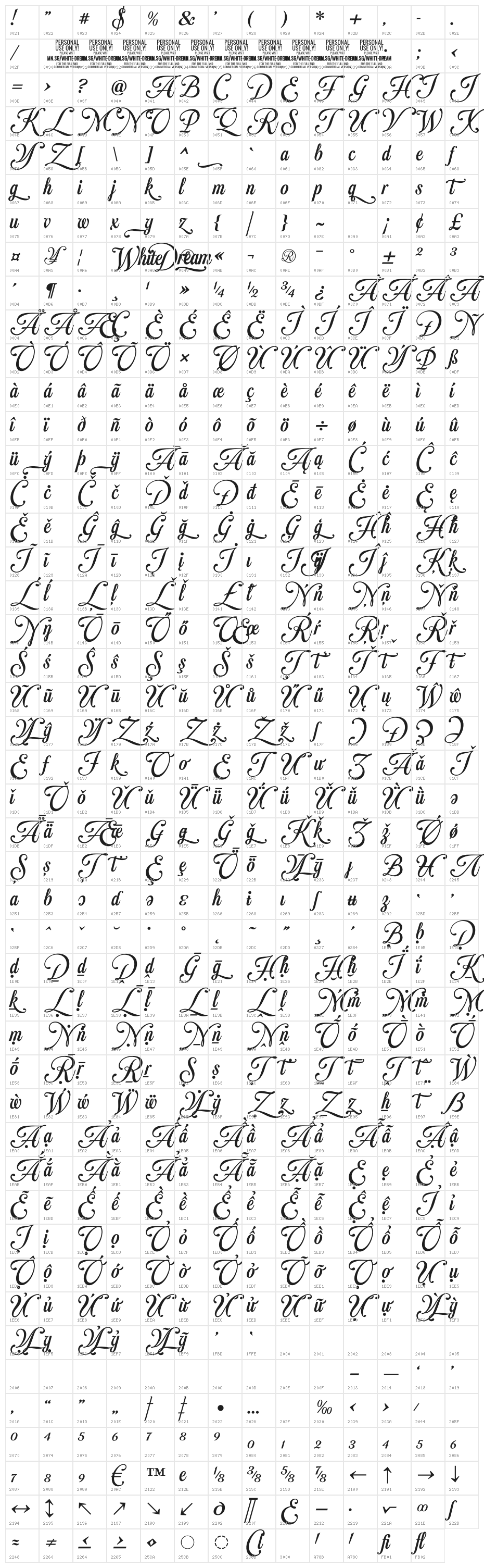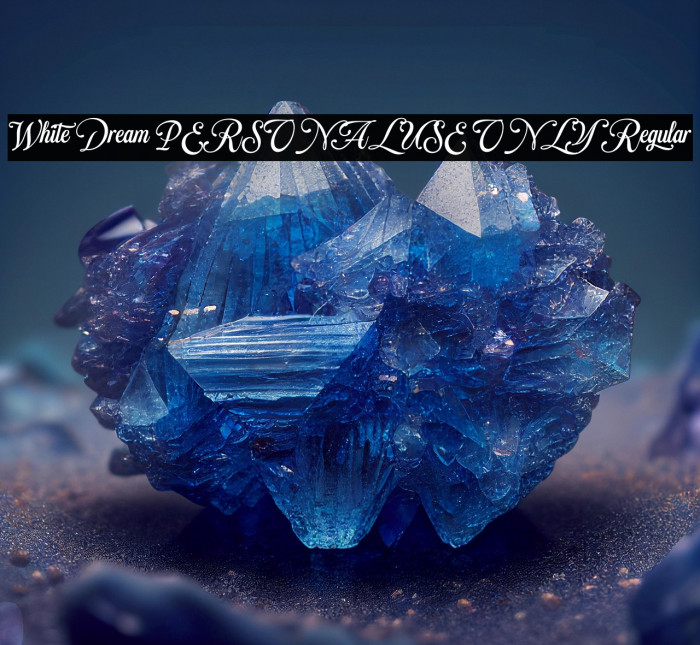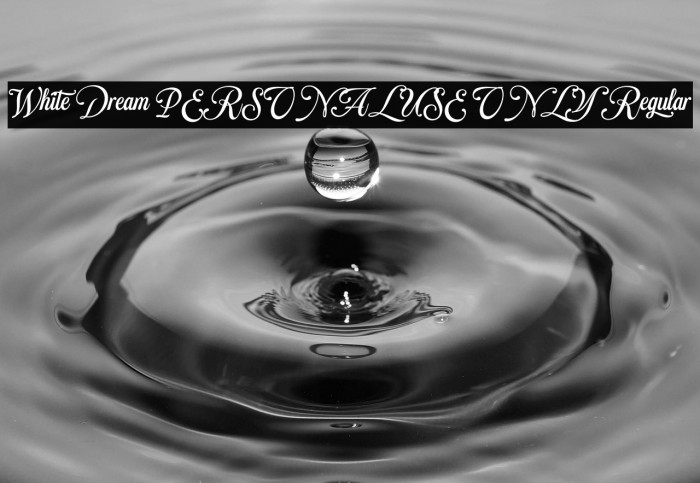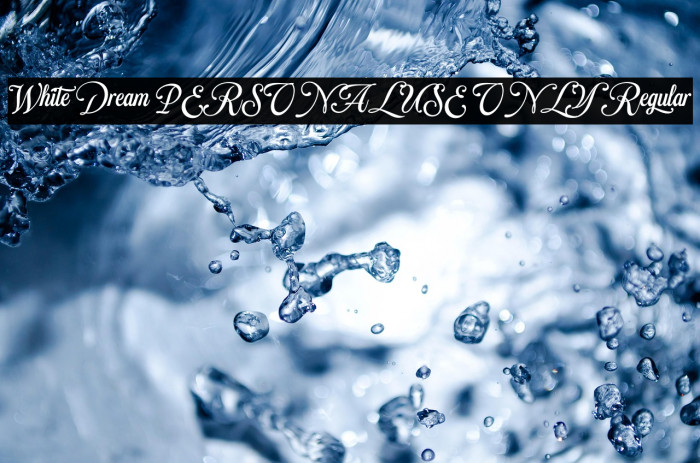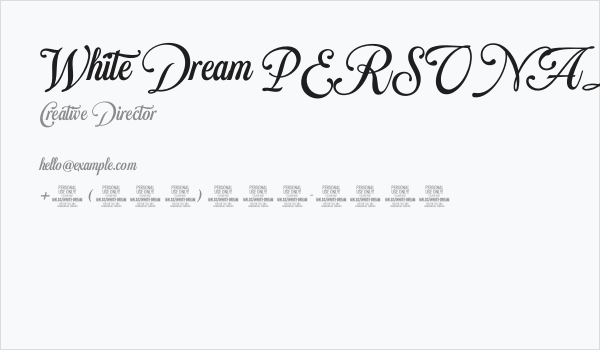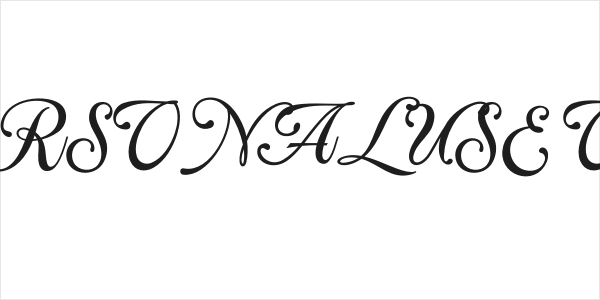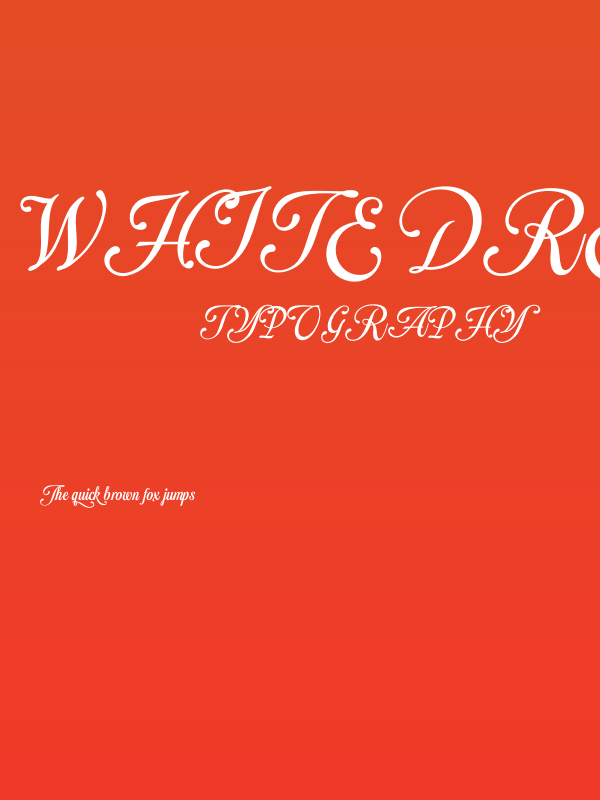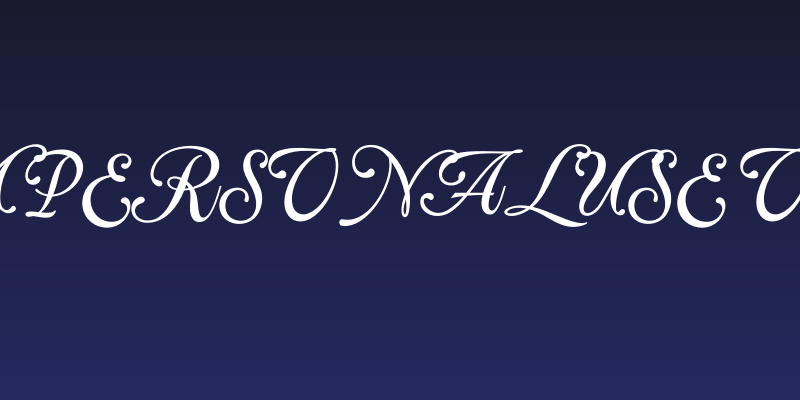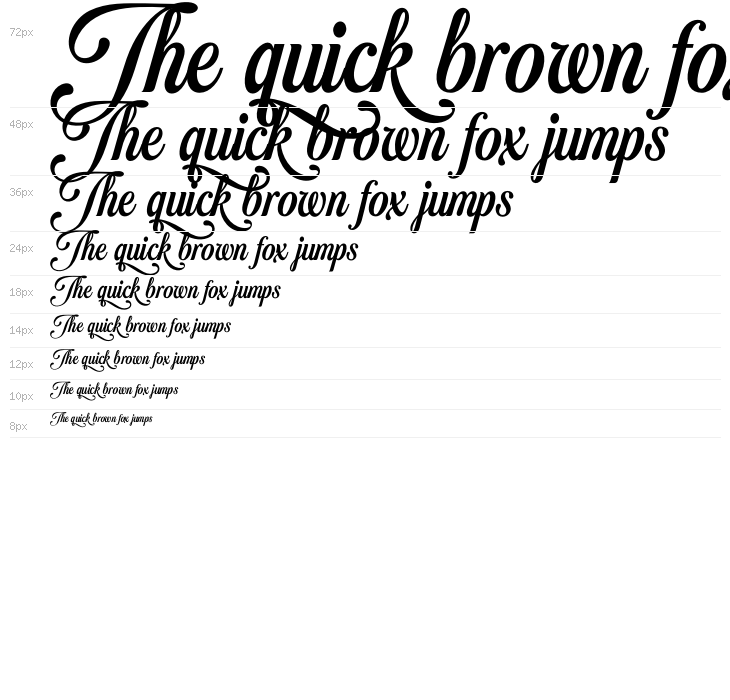
White Dream PERSONAL USE ONLY Regular Font
White Dream PERSONAL USE ONLY Regular Description
This font features an elegant and flowing script style, characterized by its ornate and decorative letterforms. The uppercase letters are particularly elaborate, with sweeping curves and flourishes that give a sense of sophistication and artistry. The lowercase letters maintain a cohesive style, with smooth connections and a slightly more restrained design compared to the uppercase. The numerals and special characters complement the overall aesthetic, maintaining the same decorative flair. This font is well-suited for projects that require a touch of elegance and creativity.